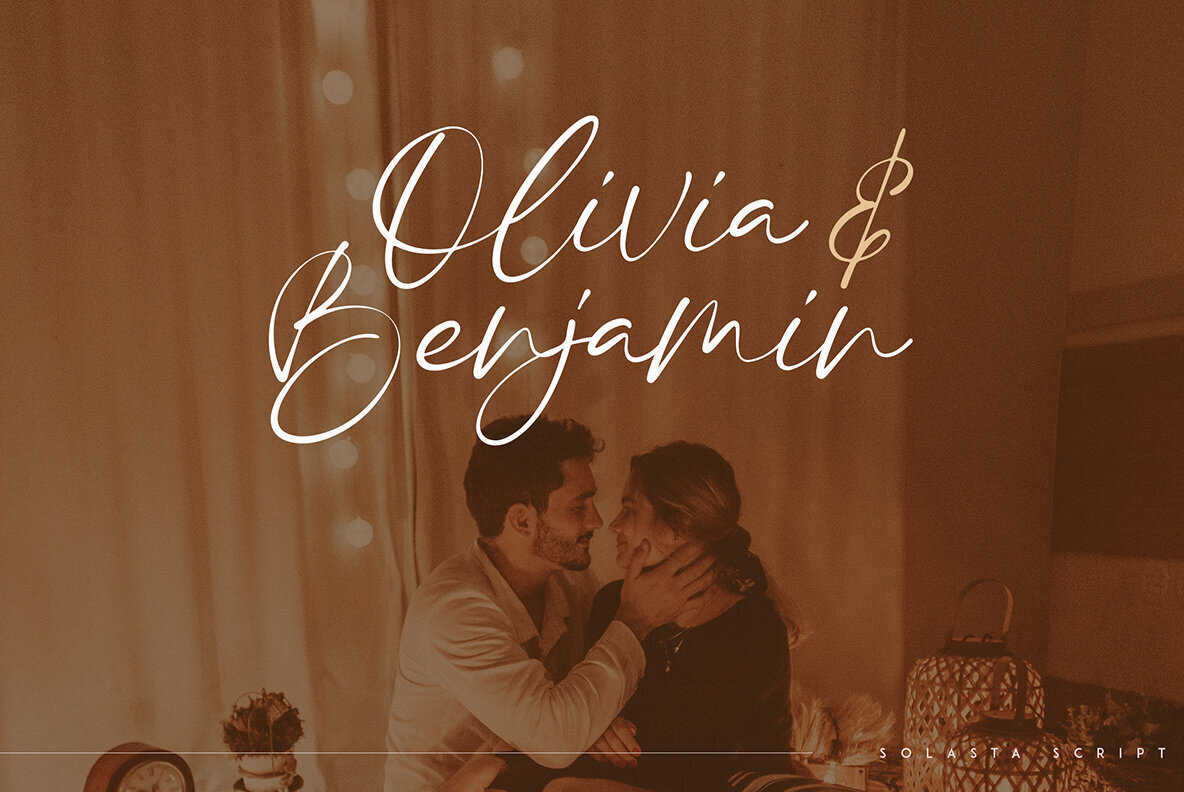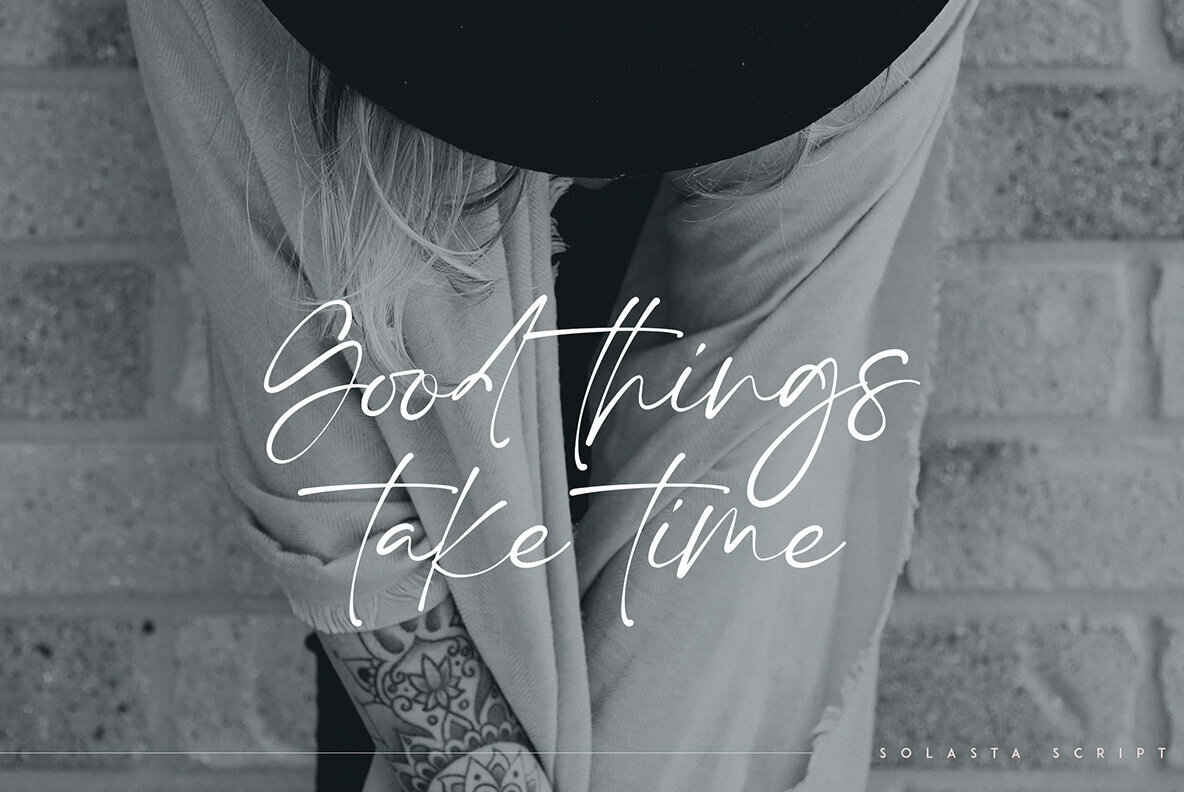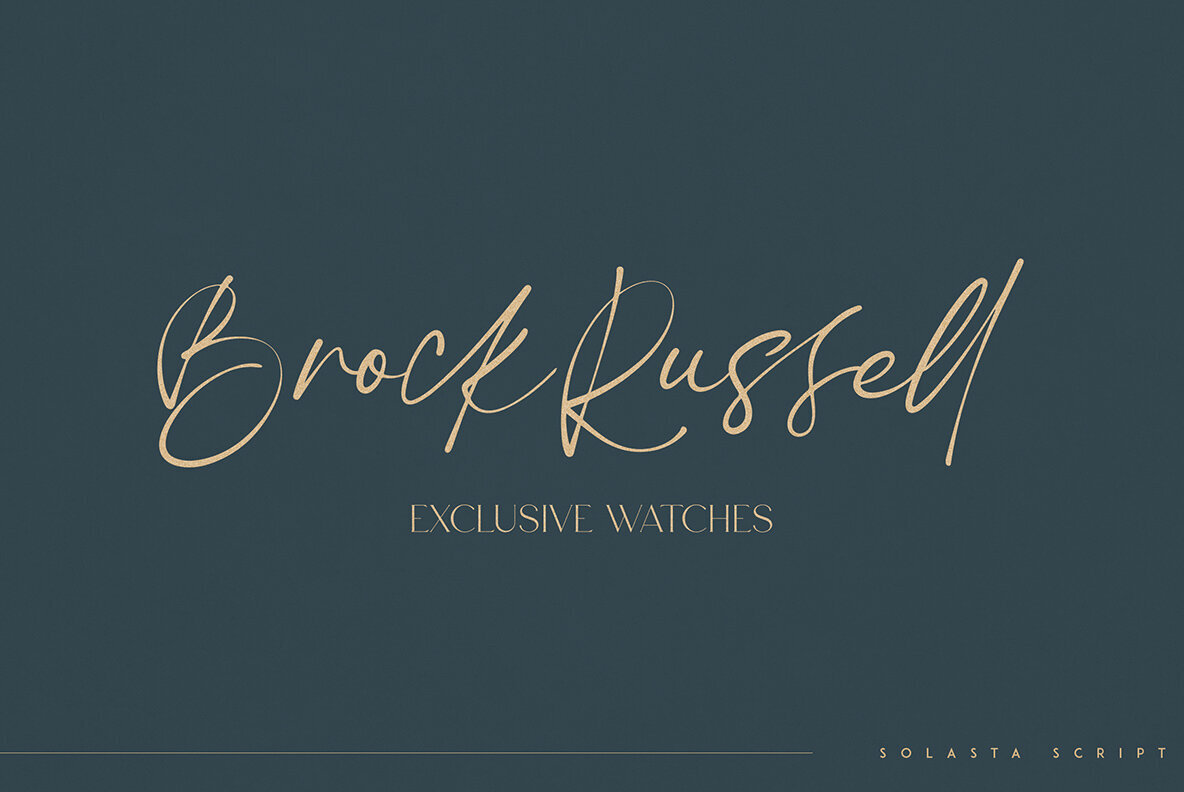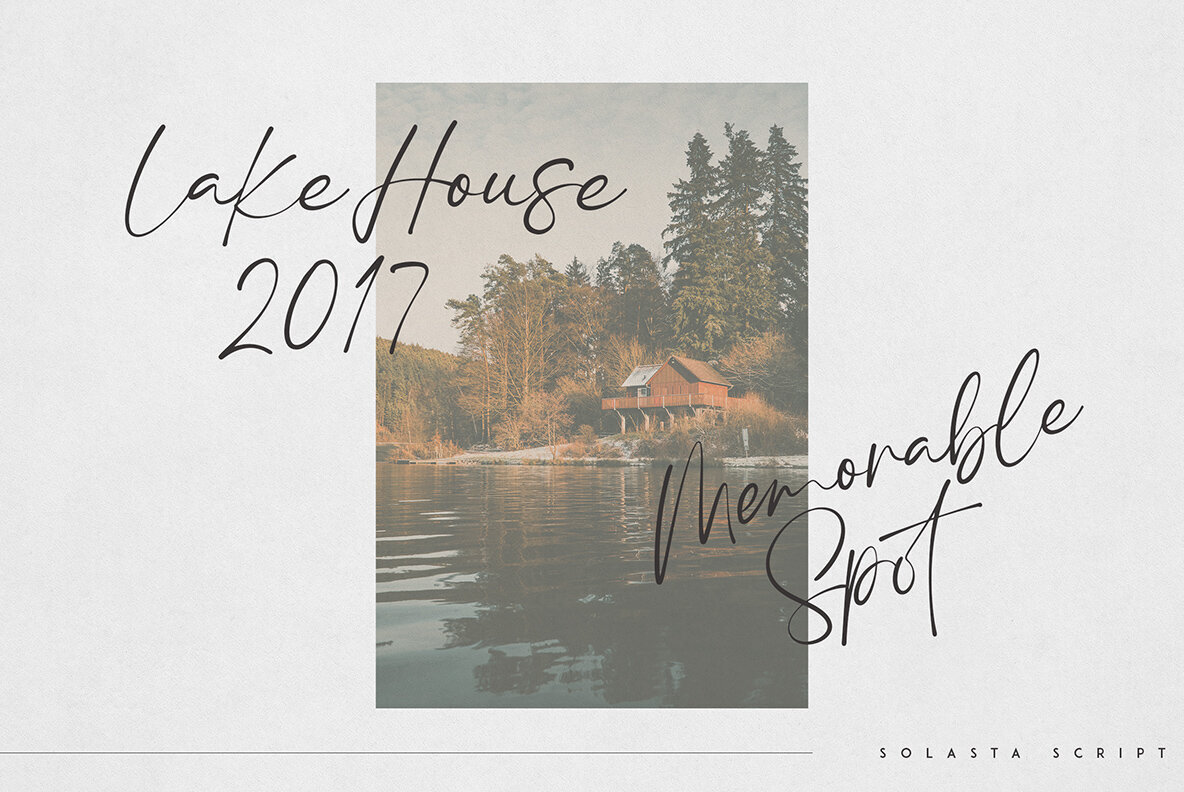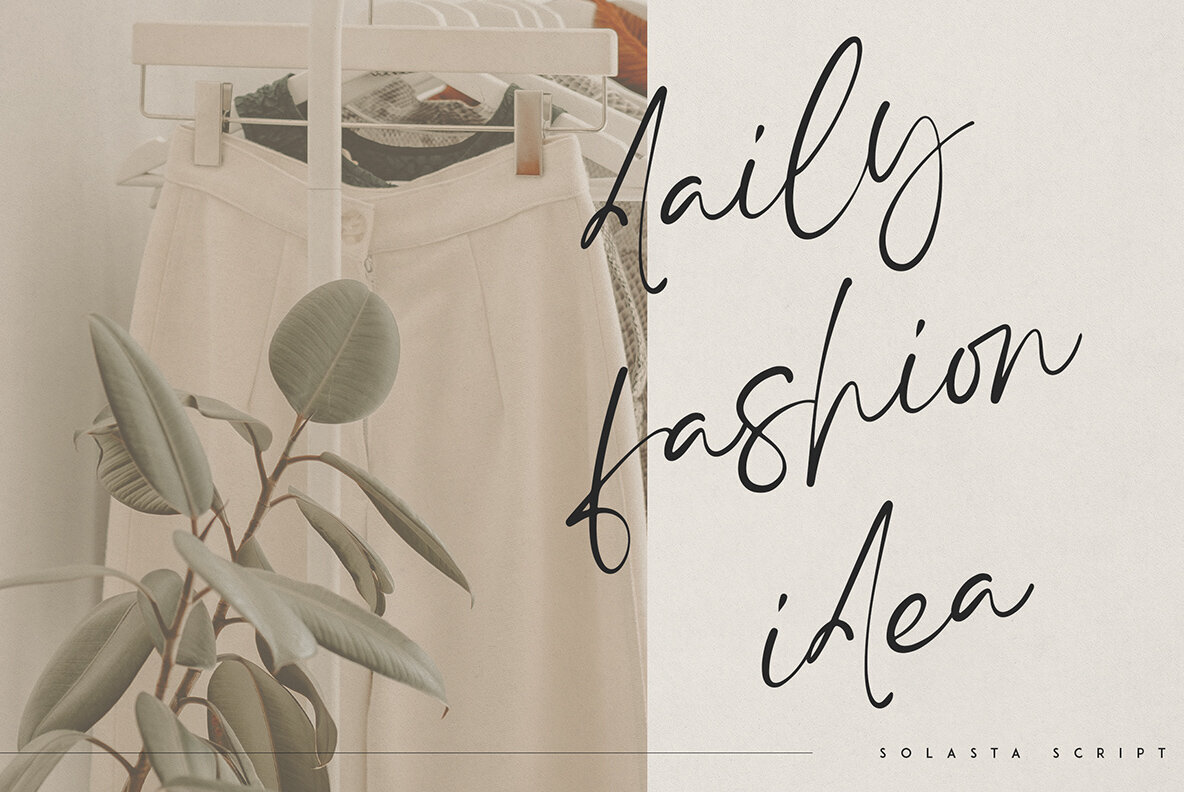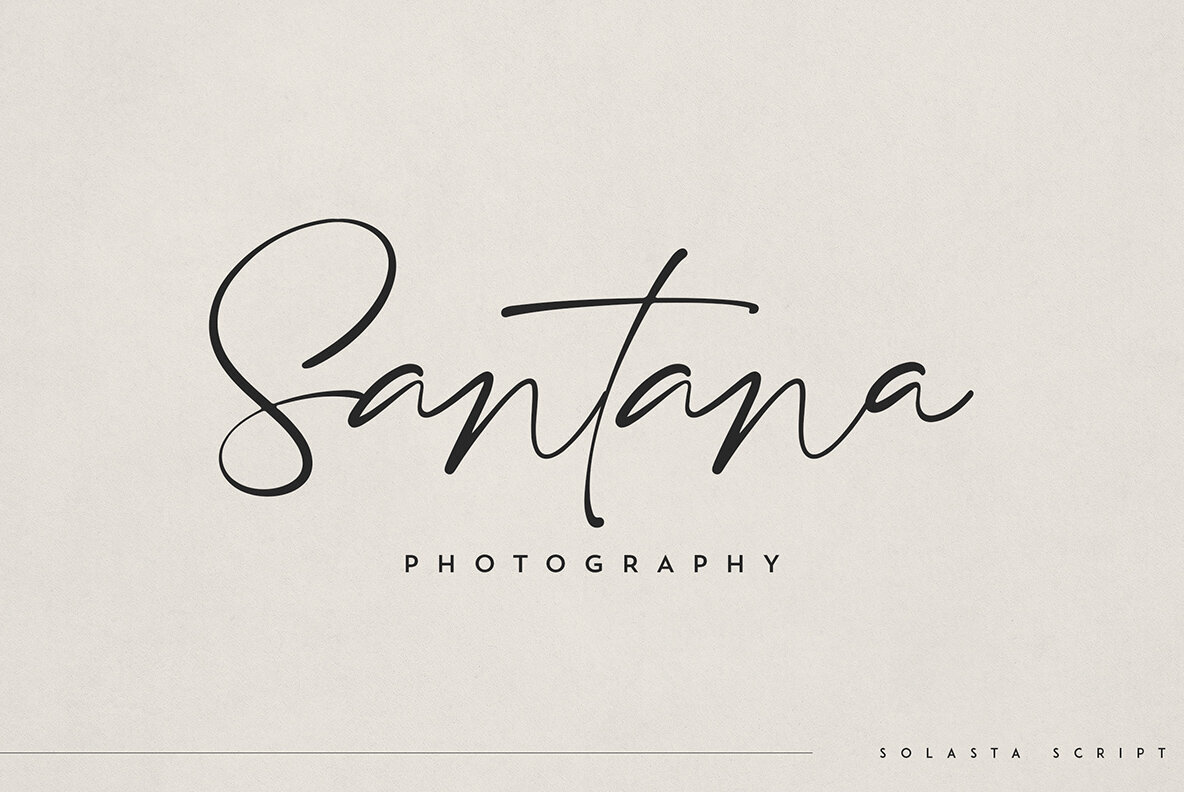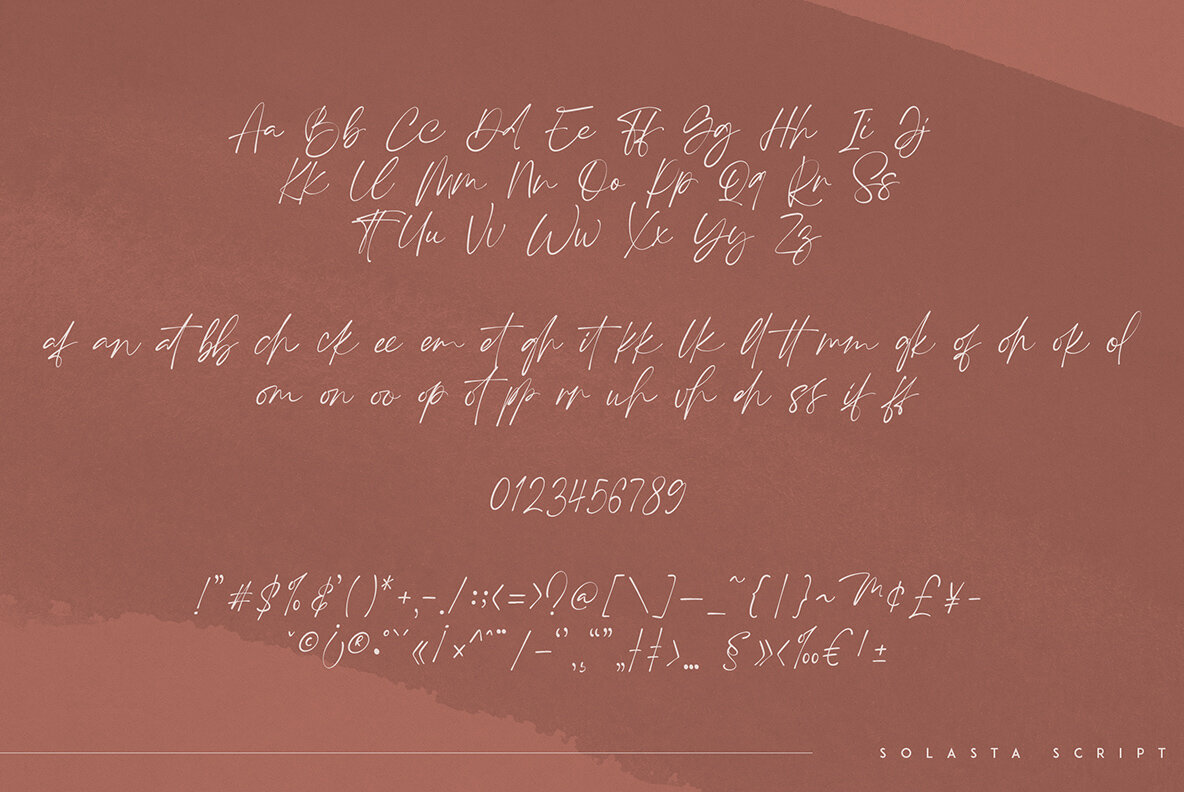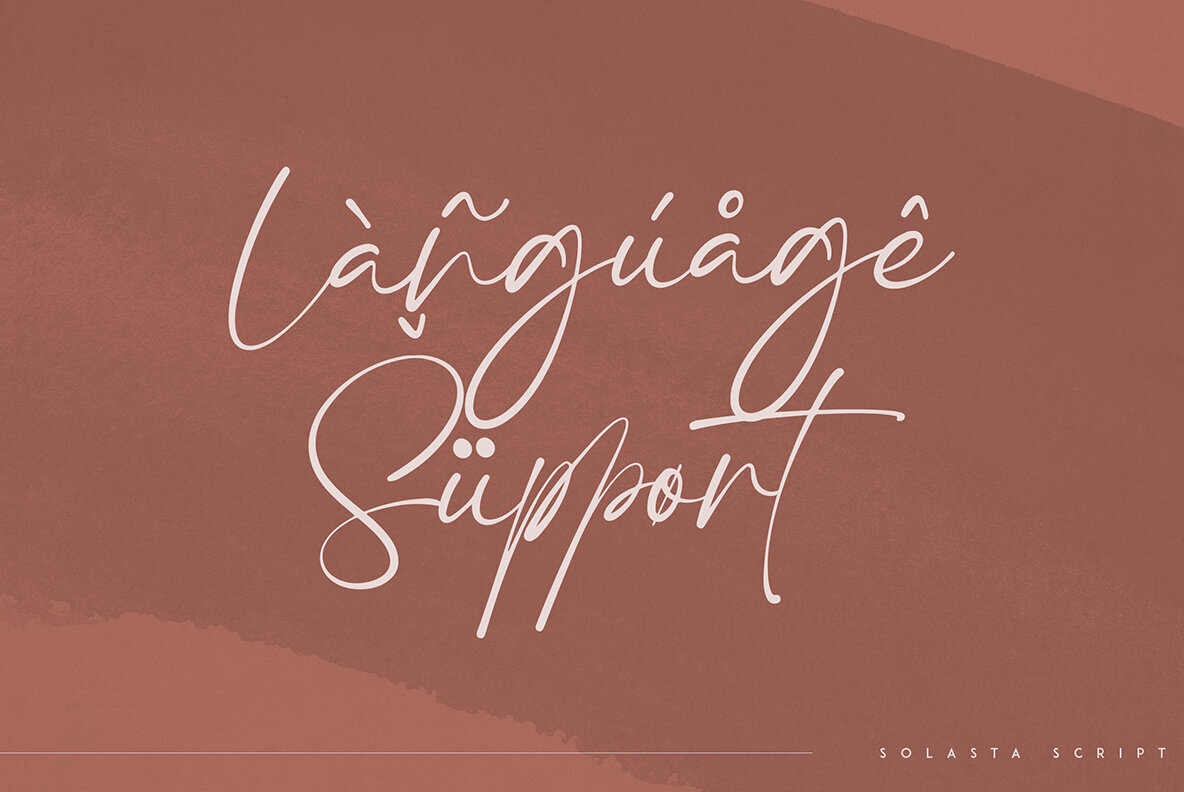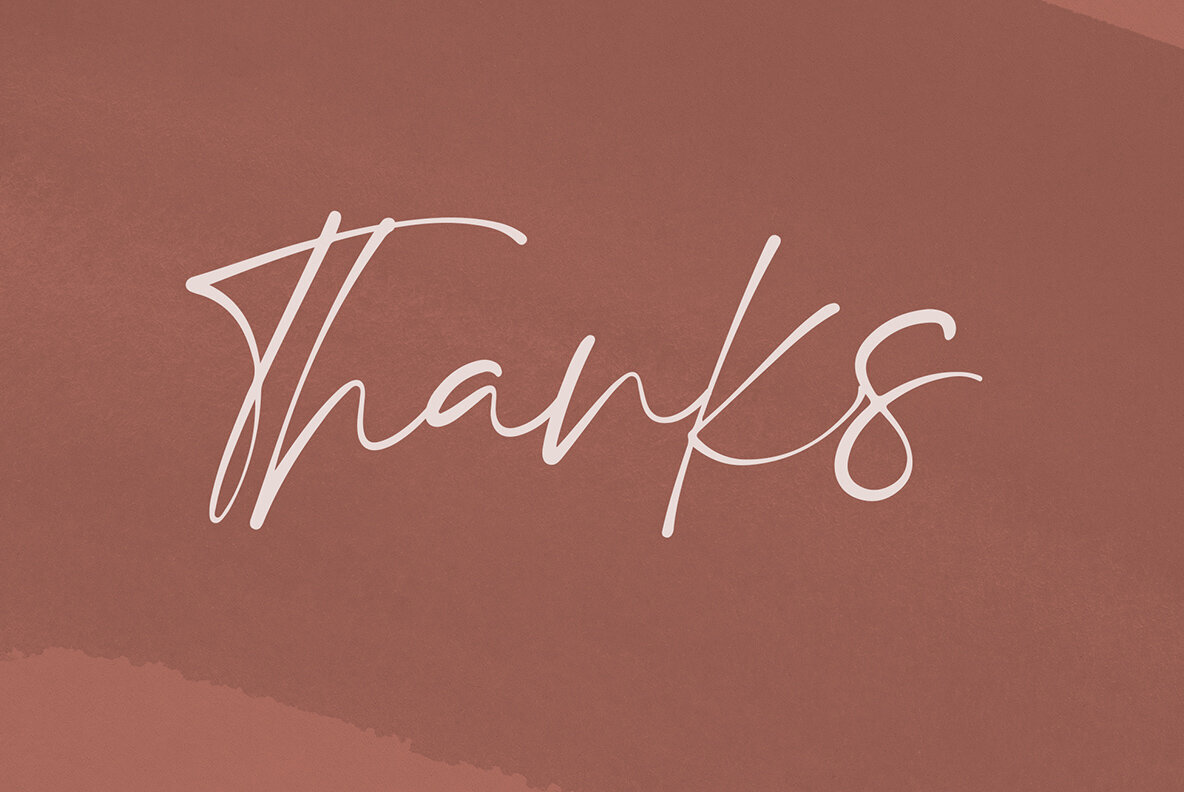
Solasta Font
Solasta
Solasta offers a modern take on the organic script, making it an ideal choice for diverse design needs. With its array of ligature glyphs and built-in multilingual support, this typeface excels in both large and small applications. Solasta is crafted to enhance any project, from branding and homeware to magazine headers and product packaging. Mockups and backgrounds used for display are not included with the font.Solasta: A Versatile Organic Script